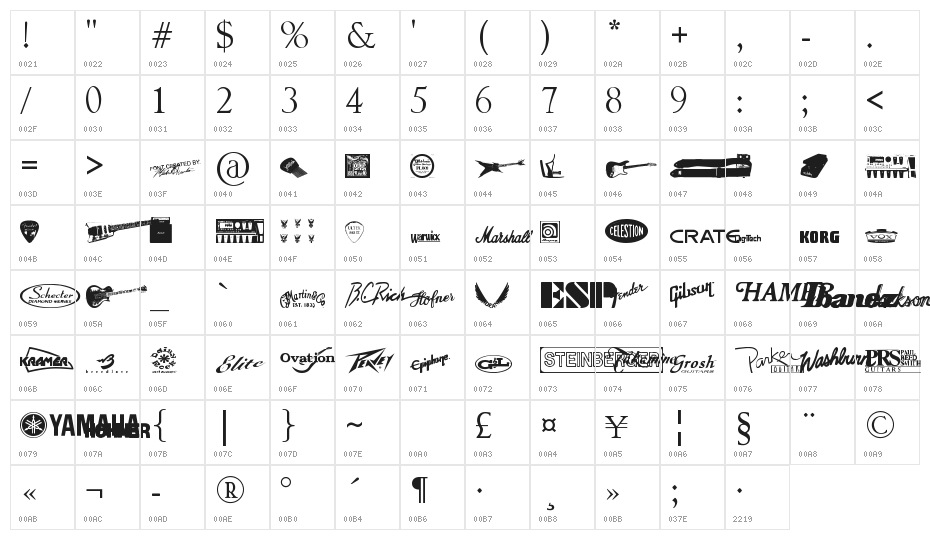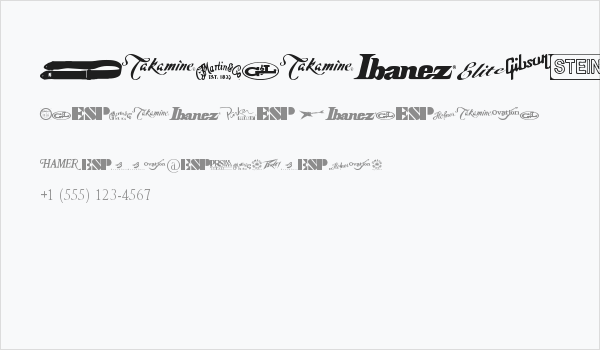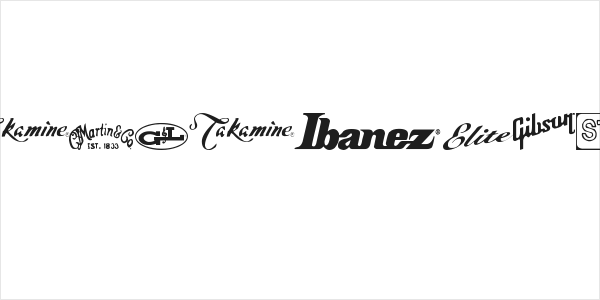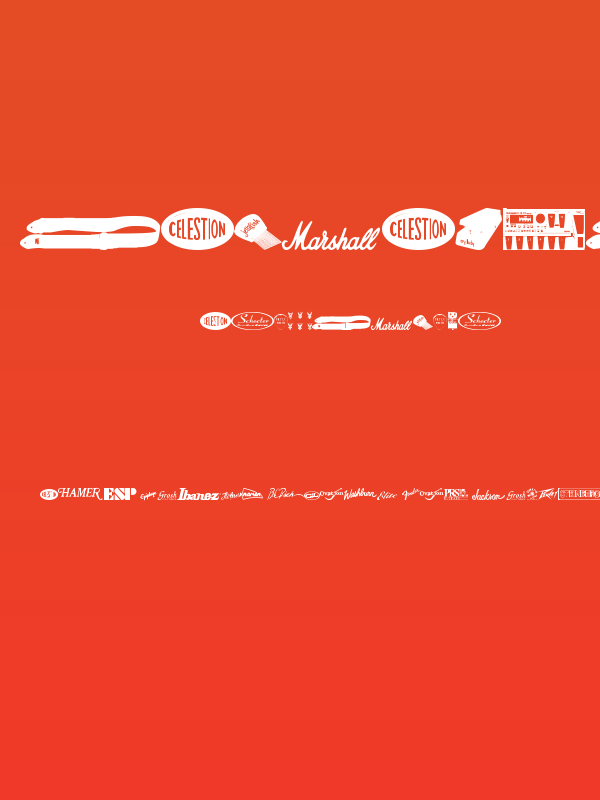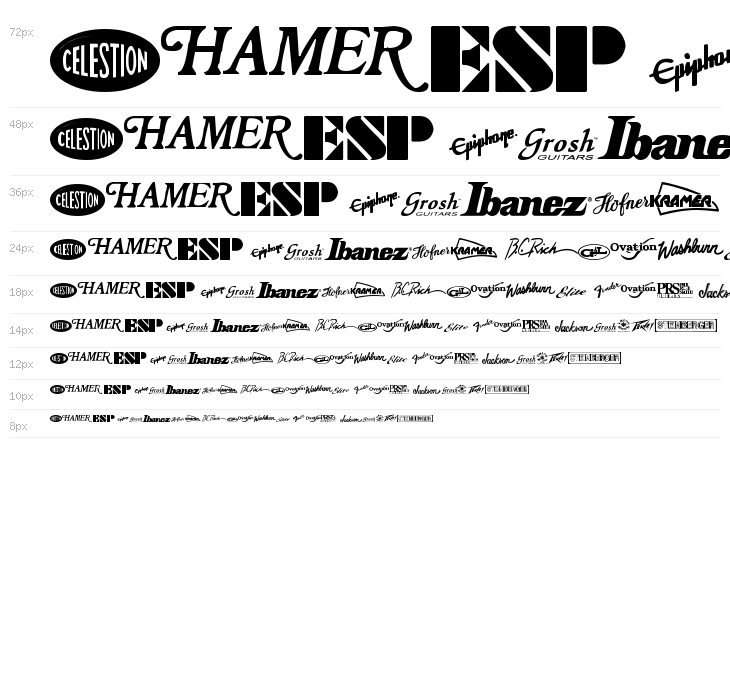
Gtartings Font
Gtartings Description
This font features a collection of logos and brand names associated with musical instruments and equipment. Each logo is distinct, showcasing a variety of styles from bold and modern to classic and script-like. The numbers and special characters at the bottom are presented in a serif style, with elegant curves and a classic appearance. The overall design is diverse, reflecting the unique identity of each brand while maintaining a cohesive look through the serif numerals and symbols.